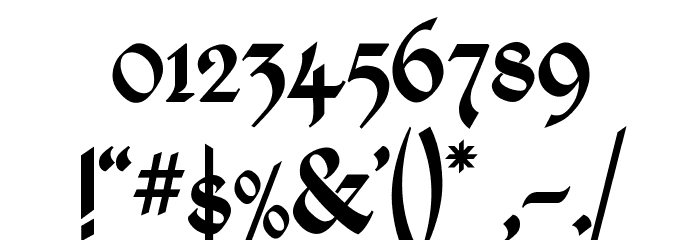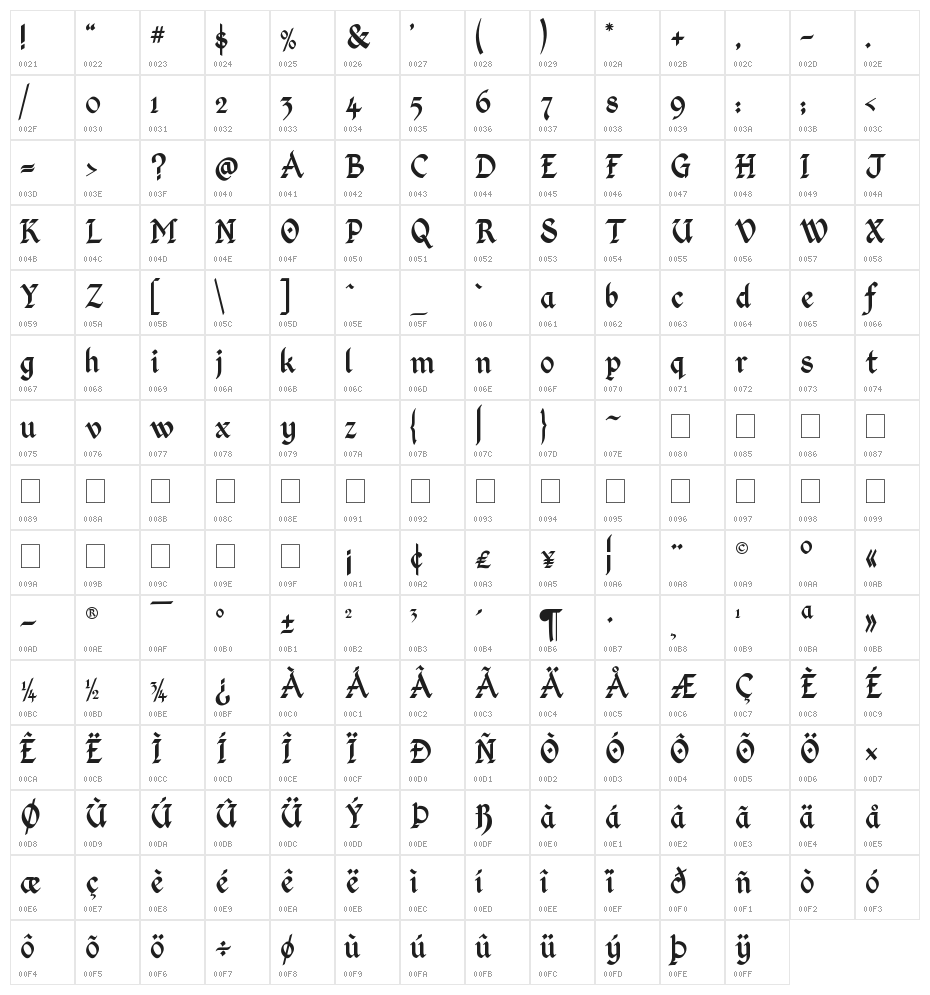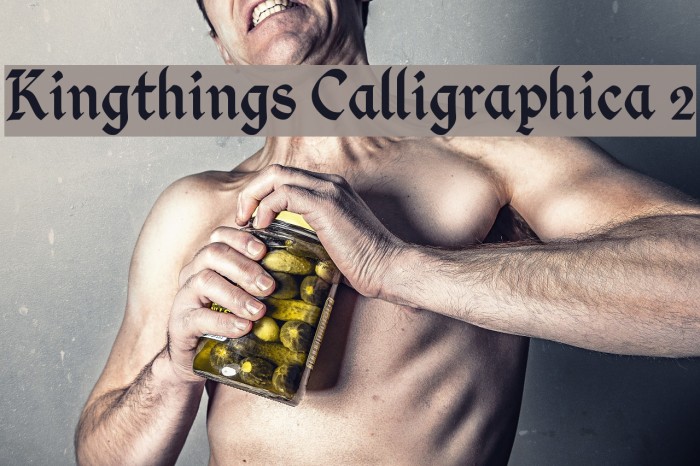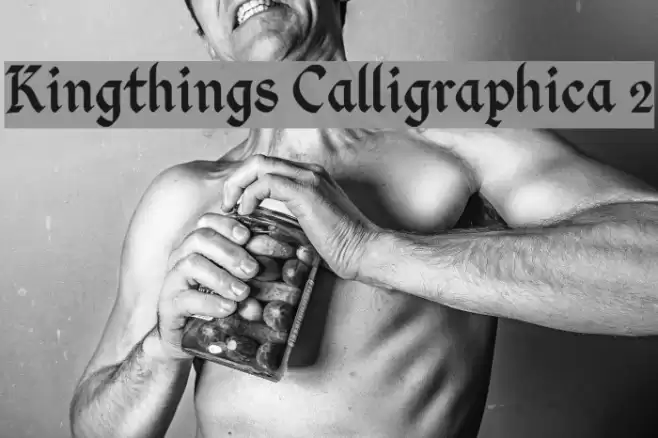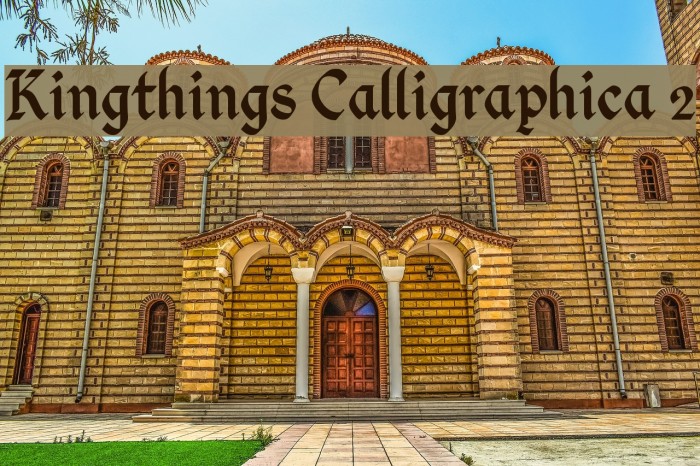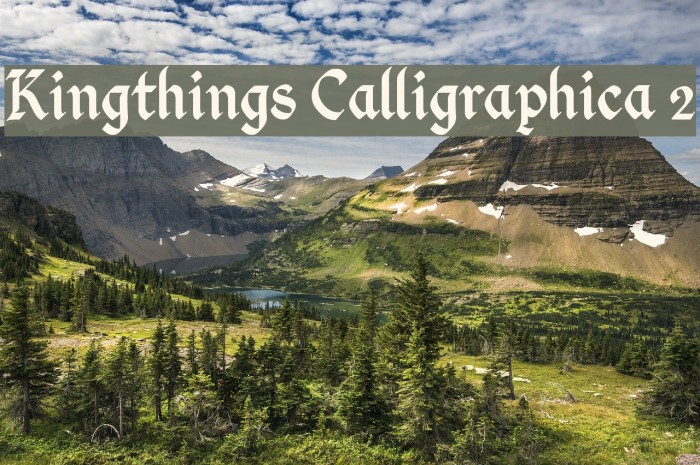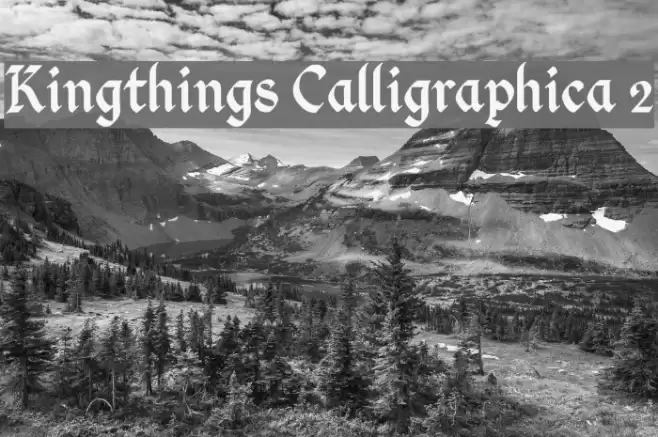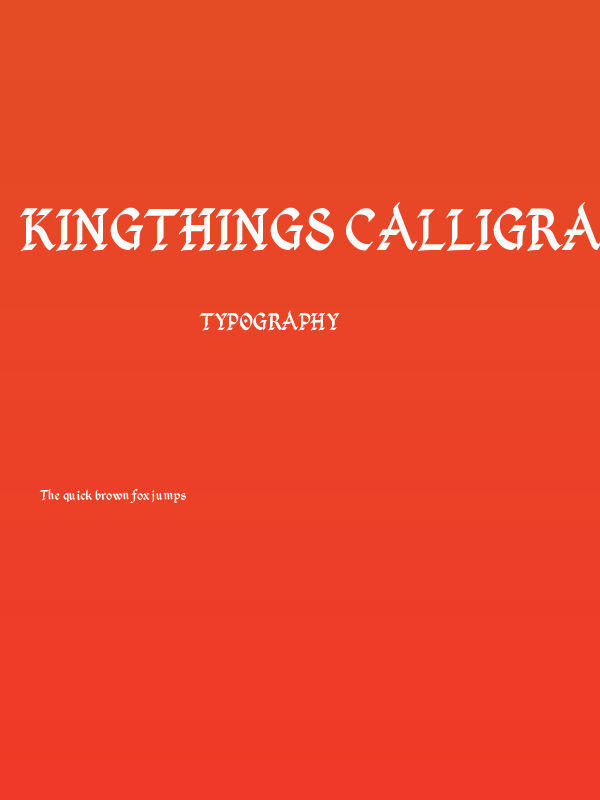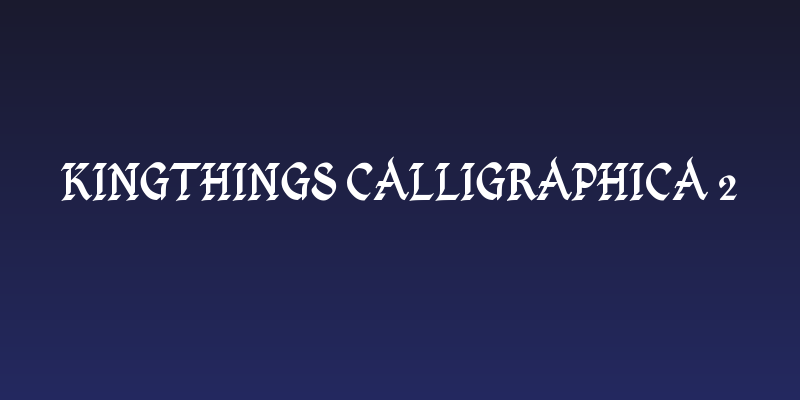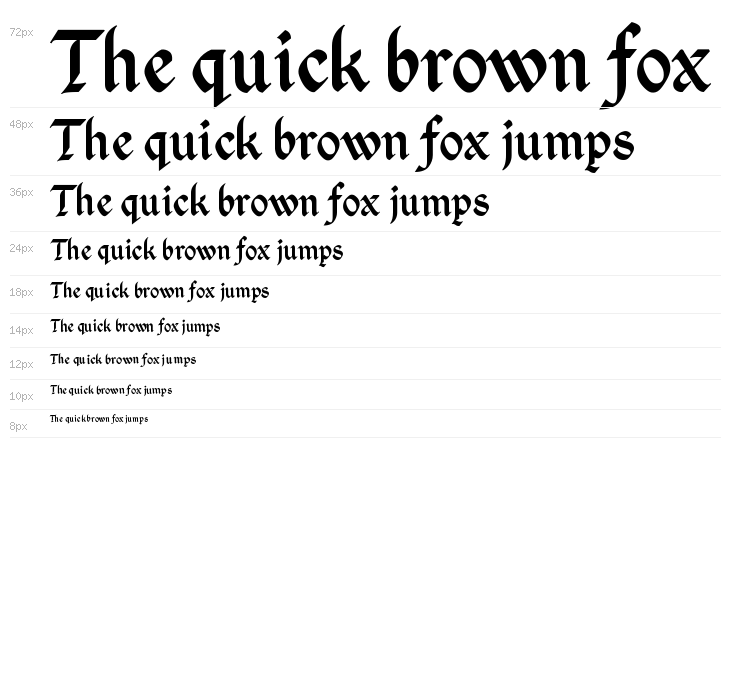
Kingthings Calligraphica 2 Font
Kingthings Calligraphica 2 Description
This font exudes a medieval charm with its calligraphic style, reminiscent of historical manuscripts. The characters are crafted with sharp, angular strokes and a distinct flair, giving each letter a unique personality. The uppercase letters are particularly bold and commanding, while the lowercase letters maintain a consistent flow with elegant curves. Numbers and special characters are designed to match the overall aesthetic, ensuring a cohesive look. This font is perfect for projects that require a touch of historical elegance and sophistication.
| Proposed Projects | Ideal for historical documents, fantasy-themed designs, invitations, and branding that requires a classic touch. |